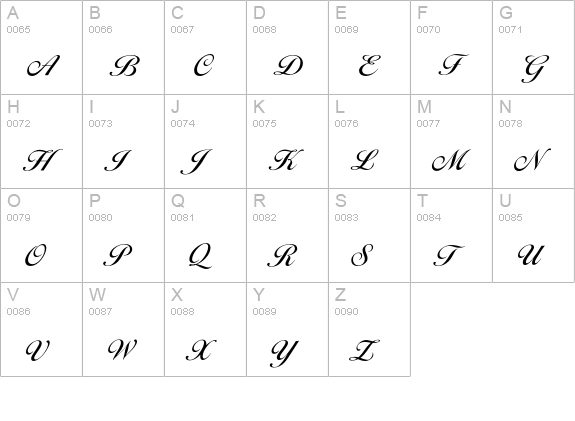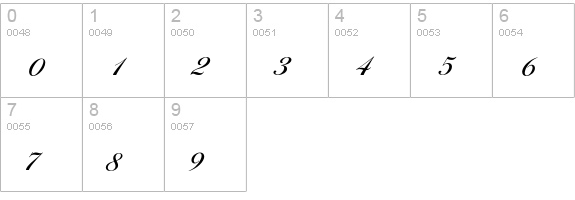
Ballantines-Medium is a balanced, medium-weight variant in the Ballantines typeface family \xE2\x80\x94 well suited to sub-headlines, navigation, and balanced editorial work.
Ballantines-Medium font is a versatile and stylish typeface that strikes the perfect balance between elegance and readability. With its classic yet modern design, Ballantines-Medium is ideal for a wide range of design projects, from branding to editorial design. Its clean lines and balanced proportions make it a timeless choice for both print and digital applications. The best part? Ballantines-Medium font is available for free download at FontsMarket.com. Whether you're a seasoned designer looking to add a new font to your collection or just starting out and in need of a reliable typeface, Ballantines-Medium is an excellent choice. Download it today and elevate your designs with this sophisticated and versatile font.